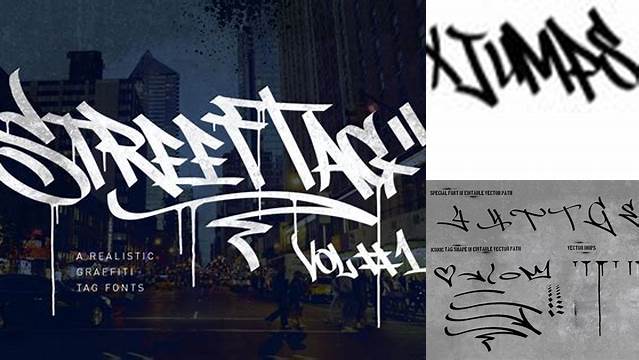
Hey guys! Are you on the hunt for a font that screams urban energy and raw creativity? Look no further! The Street Tag Vol 1 font is exactly what you need to inject some serious street style into your designs. Whether you're working on a poster, a logo, or even just want to spice up your social media graphics, this font is a game-changer. In this article, we're diving deep into everything you need to know about the Street Tag Vol 1 font, including where to find it for free, how to use it effectively, and why it’s such a popular choice among designers.
What Makes Street Tag Vol 1 Font So Special?
Street Tag Vol 1 Font has a unique aesthetic that sets it apart from typical fonts. It's designed to mimic the look and feel of authentic street art, capturing the essence of urban graffiti. This makes it ideal for projects that require a bold, edgy, and rebellious touch. Unlike more polished and refined fonts, Street Tag Vol 1 boasts a raw, hand-drawn quality that gives your work an authentic and gritty vibe. This font is perfect for making a statement and grabbing attention, especially in a world saturated with generic designs.
The font's irregular lines, varied stroke weights, and intentionally rough edges contribute to its distinctive character. Each glyph is crafted to resemble genuine graffiti tags, lending an air of authenticity and urban cool. It's this attention to detail that makes Street Tag Vol 1 so appealing to designers looking to capture the spirit of street culture. Furthermore, the font often includes stylistic alternates and ligatures, providing even more options for customization and creativity. These additional features allow designers to fine-tune the font to perfectly match their vision, ensuring that each project feels unique and personalized. Whether you're aiming for an underground vibe or a more polished urban aesthetic, Street Tag Vol 1 offers the flexibility to achieve your desired look.
Moreover, Street Tag Vol 1 font isn't just about aesthetics; it's also about functionality. The font is designed to be legible and versatile, ensuring that it can be used in a variety of contexts. While its primary appeal lies in display settings like posters and banners, it can also be effectively used in smaller sizes for logos and branding. The key is to experiment and find the right balance between its expressive style and readability. Designers often pair Street Tag Vol 1 with cleaner, more minimalist fonts to create a visually striking contrast that enhances the overall impact of their designs. By combining the raw energy of Street Tag Vol 1 with the simplicity of a sans-serif or serif font, you can create a dynamic and engaging visual experience.
How to Effectively Use Street Tag Vol 1 Font in Your Designs
Okay, so you've got your hands on the Street Tag Vol 1 font. Now what? The key to using this font effectively is to understand its strengths and limitations. Because of its bold and attention-grabbing nature, Street Tag Vol 1 is best suited for headlines, titles, and short bursts of text. Avoid using it for large blocks of body copy, as its intricate design can become tiring on the eyes. Think of it as the star of the show – use it sparingly to make a big impact.
When incorporating Street Tag Vol 1 font into your designs, consider the overall aesthetic you're trying to achieve. This font pairs well with other design elements that complement its urban, edgy vibe. For example, you could use it alongside distressed textures, grunge backgrounds, and bold color palettes to create a cohesive and visually striking design. Alternatively, you could use it as a contrasting element in a more minimalist design to add a touch of unexpected flair. Experiment with different combinations to see what works best for your project. Also, pay attention to the kerning and tracking of the font. Adjusting these settings can help to improve readability and ensure that the font looks its best in different contexts. Sometimes, a little bit of tweaking can make a big difference in the overall impact of your design.
Furthermore, think about the message you're trying to convey with your design. Street Tag Vol 1 font is particularly well-suited for projects that require a sense of energy, rebellion, or authenticity. It's a great choice for posters, flyers, and album covers that promote music events, art exhibitions, or other cultural happenings. It can also be used effectively in branding projects for businesses that want to project a cool, edgy image. However, it may not be the best choice for more formal or traditional designs. Consider your target audience and the overall tone of your project when deciding whether or not to use Street Tag Vol 1. By carefully considering these factors, you can ensure that the font enhances your design and helps you to achieve your desired results.